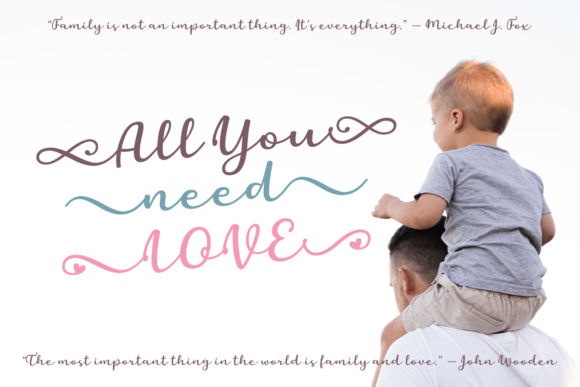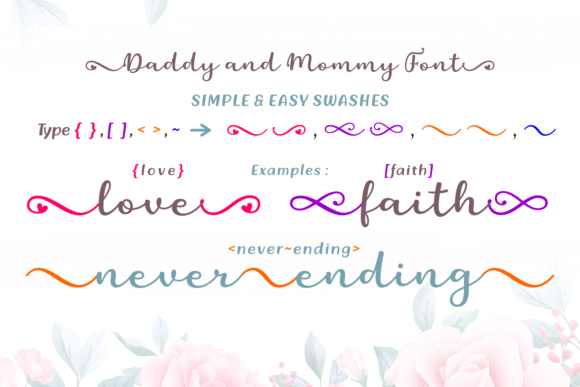
Daddy and Mommy Font
db-ku.com - Script & Handwritten -- Daddy and Mommy is a cute and casual handwritten font with an incredibly friendly feel. It features gorgeous swashes and ligatures that make this script incredibly versatile. Whether you’re looking for fonts for Instagram or calligraphy scripts for DIY projects, Daddy and Mommy will turn any creative idea into a true piece of art!